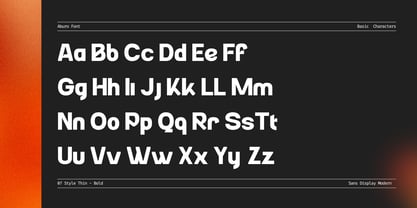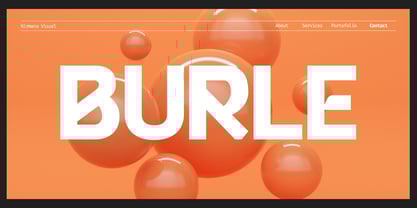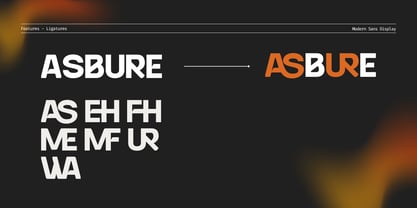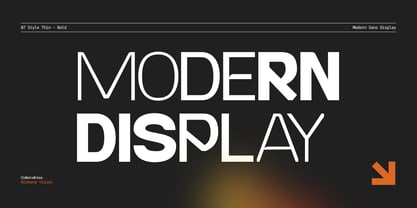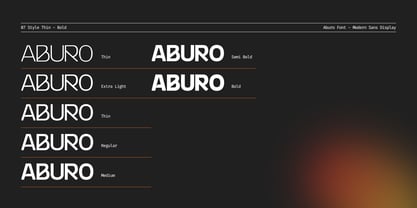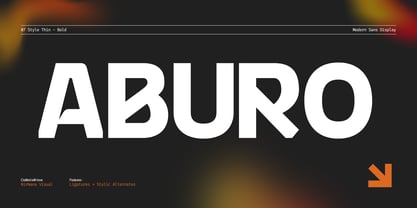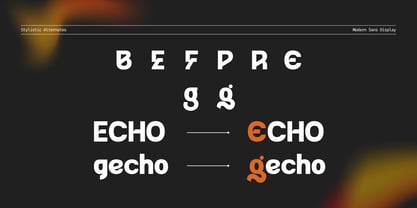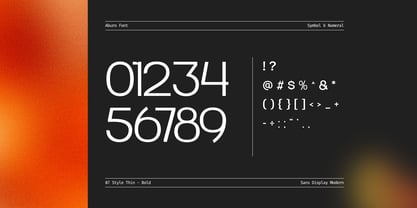
Aburo
by Nirmana Visual
The Aburo Font Family was designed by Sigit Dwipa and published by Nirmana Visual. Aburo contains 7 styles and family package options.
Aburo is a modern font family ranging from Thin to Bold, crafted for versatile branding needs. With its clean lines, elegant curves, and balanced proportions, Aburo brings a refined, contemporary feel to startup logos, websites, and premium visual identities. Its flexible weights offer creative freedom for headlines, taglines, and digital interfaces, making Aburo a sophisticated choice for modern brands.
Designers: Sigit Dwipa
Publisher: Nirmana Visual
Foundry: Nirmana Visual
Design Owner: Nirmana Visual